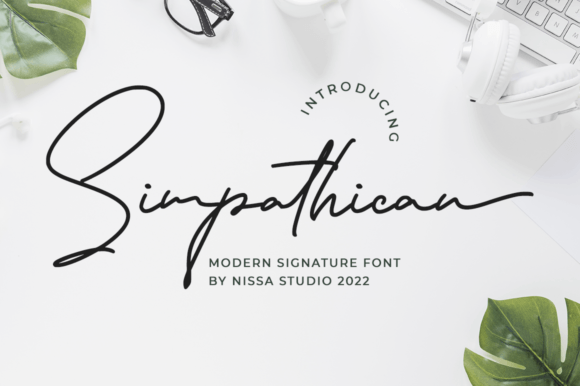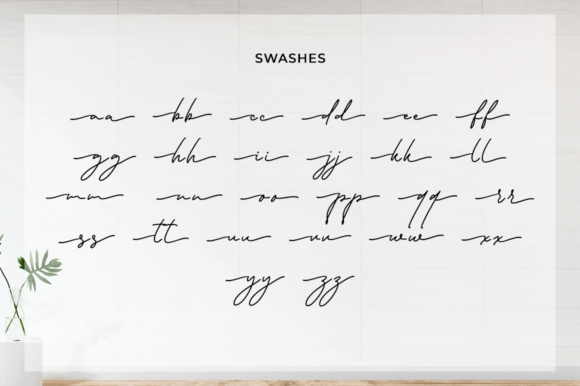
About Simpathican Font
**Simpathican** is a stunning and delicate handwritten font that exudes beauty and elegance. With its unique feel and captivating impact, this font adds a luxurious touch to any design project you undertake. Its graceful curves and refined strokes create a sense of sophistication, making it the perfect choice for upscale designs that demand a touch of class and style.
The font’s beauty lies in its simplicity and delicacy, allowing it to make a strong visual impact while retaining an air of understated elegance. Whether used for wedding invitations, branding materials, social media posts, or any other creative project, **Simpathican** elevates the overall aesthetic, giving your designs a touch of luxury and finesse.
**Simpathican**’s versatility is enhanced by its PUA encoding, which grants easy access to a plethora of amazing glyphs and ligatures. This feature empowers you to customize your designs effortlessly, ensuring that your creations are as unique and refined as your imagination allows. Whether you’re crafting elegant logos, exquisite wedding invitations, or sophisticated branding materials, **Simpathican** provides the tools you need to create visually stunning and impactful designs.
By incorporating **Simpathican** into your projects, you infuse them with a sense of luxury and sophistication. Its delicate yet impactful presence adds a touch of opulence, transforming your designs into masterpieces that leave a lasting impression. Whether used in print or digital media, **Simpathican** enriches your creations with an aura of refinement, ensuring that your work stands out with an aura of timeless beauty and grace.